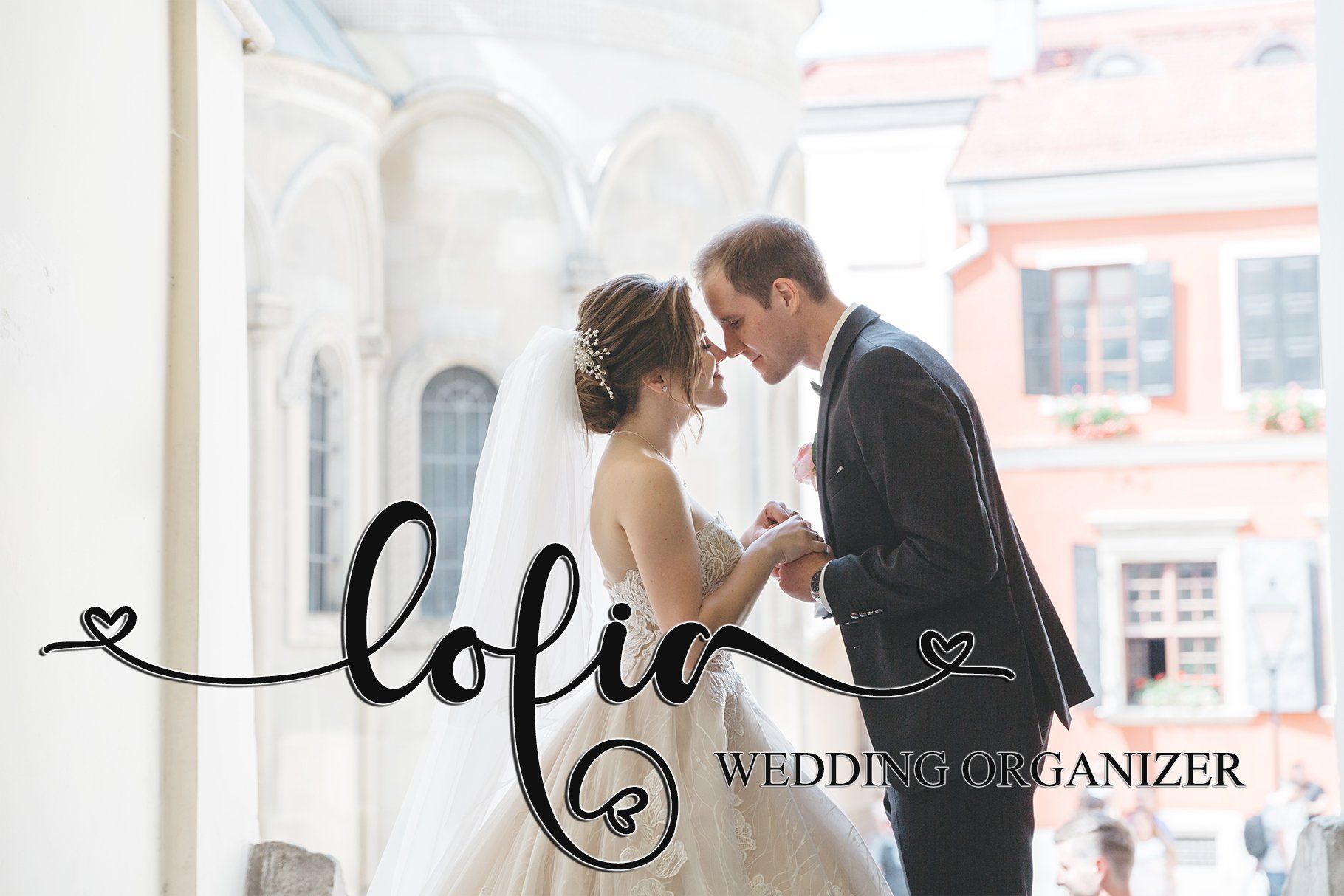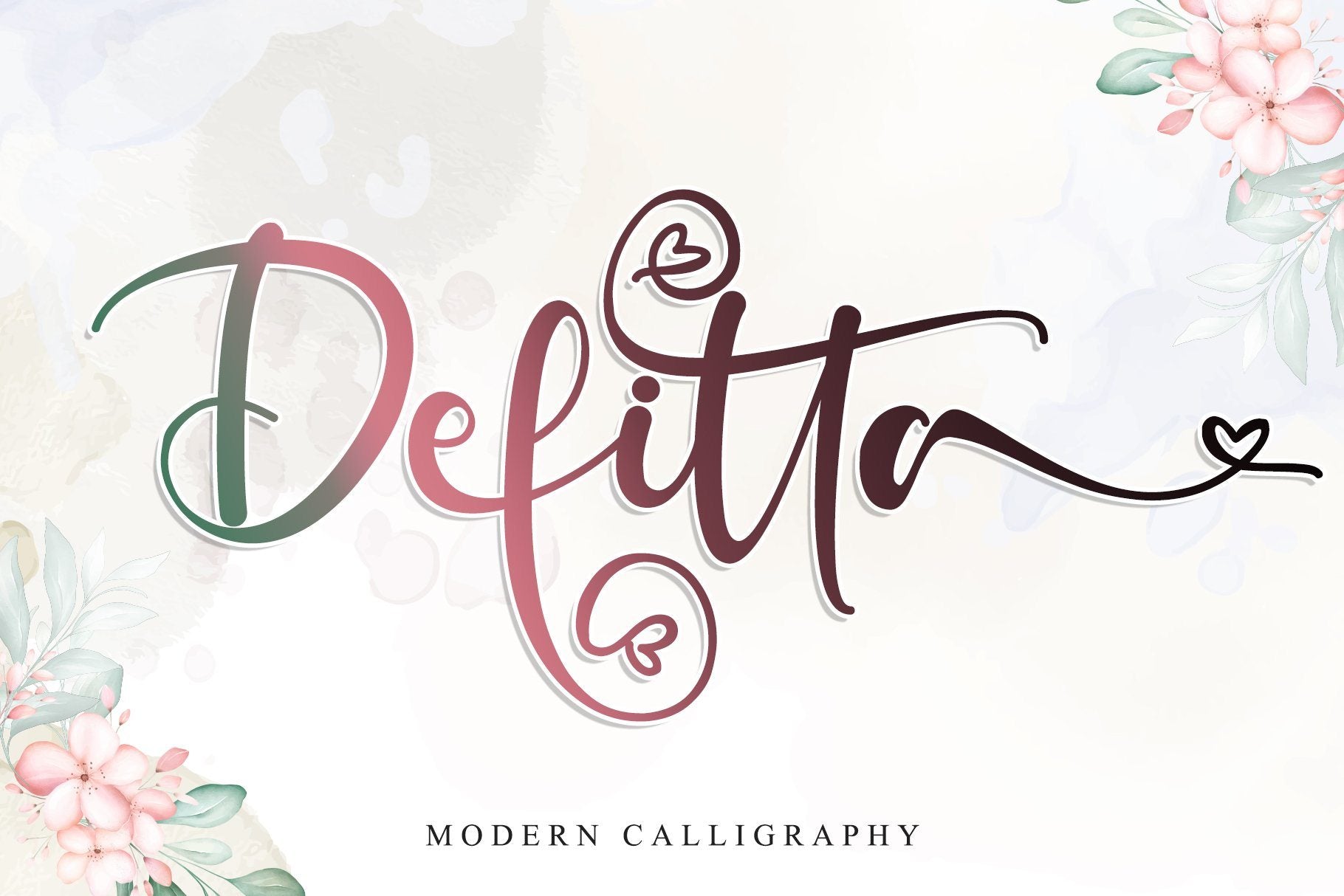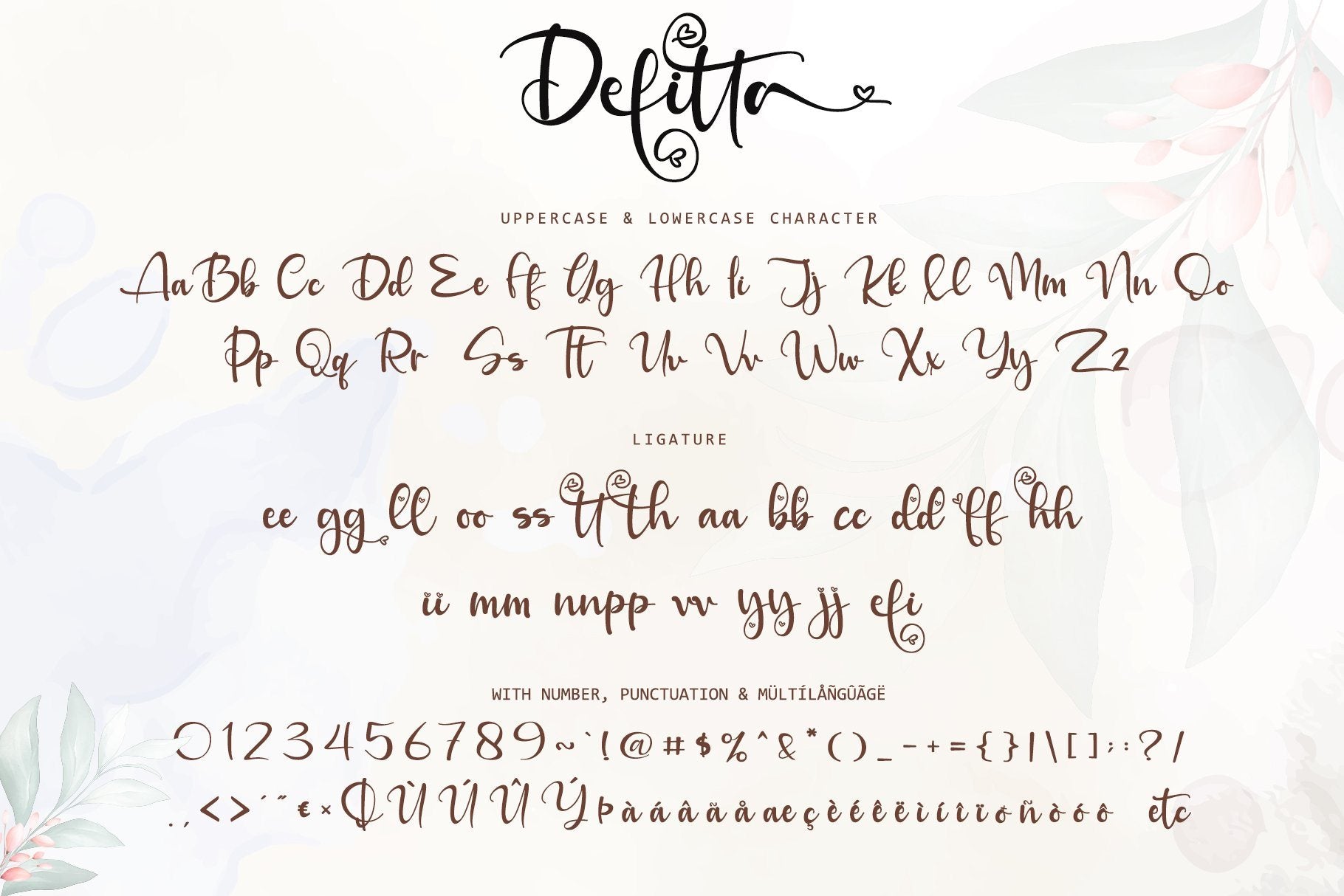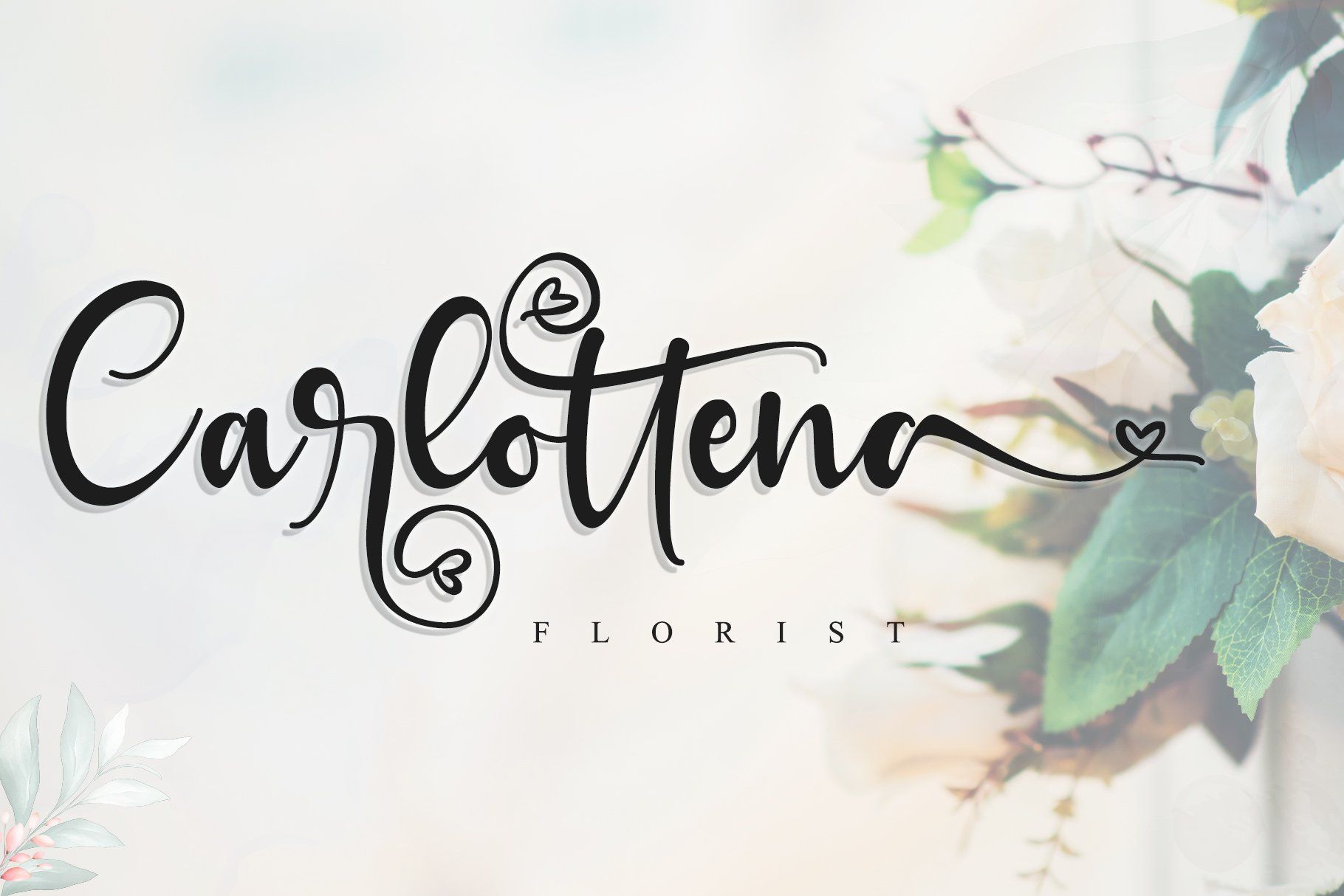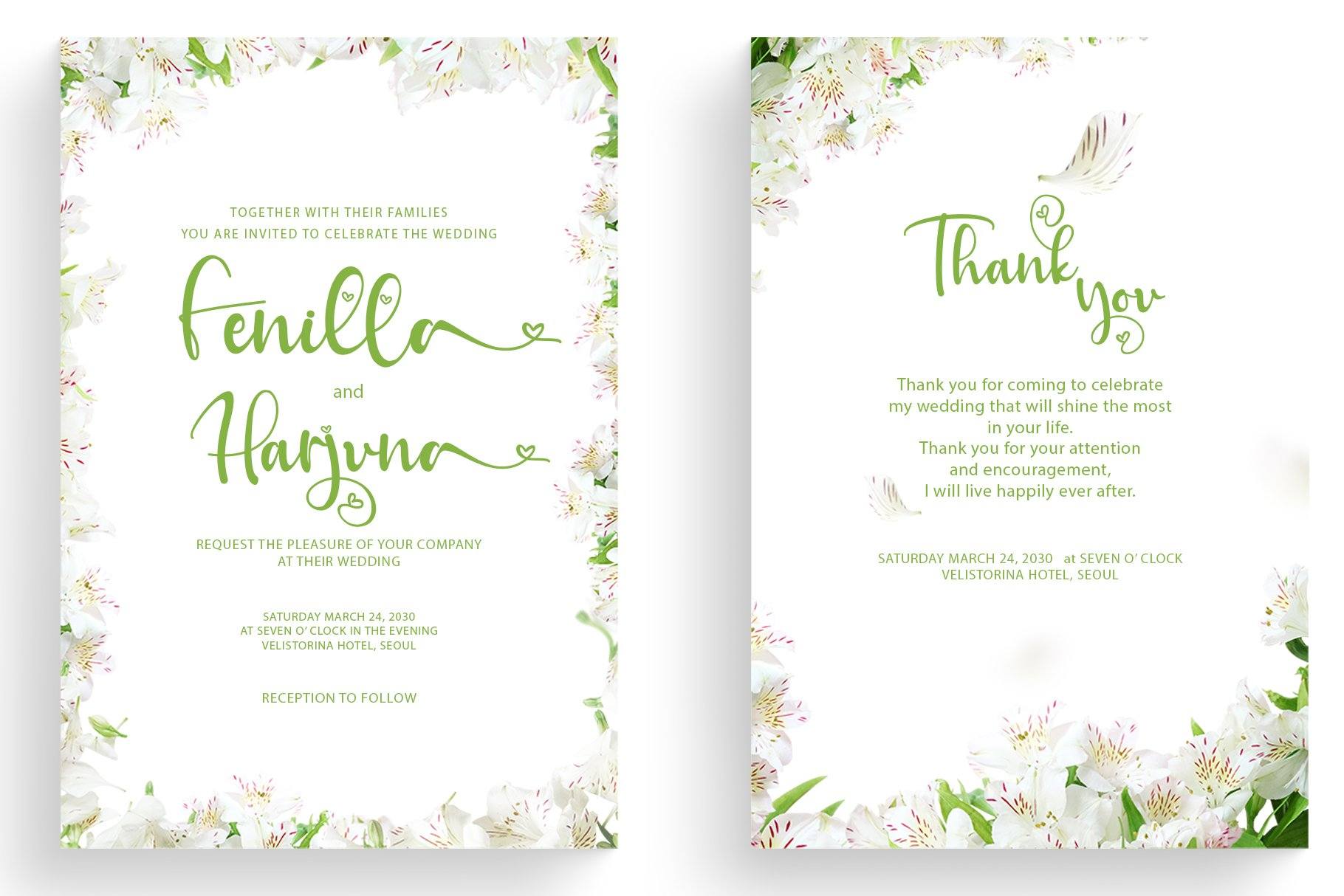
About Defitta
Defitta is an incredibly beautiful script font. It has a classy, beautiful, and modern look that can be used for logos, branding, invitations, stationery, wedding designs, social media posts, and much more! This font is PUA encoded which means you can access all of the glyphs and swashes with ease! It features a varying baseline, smooth lines, gorgeous glyphs, and stunning alternates. What’s Included : Defitta (TTF, OTF, WOFF) Defitta Italic (TTF, OTF, WOFF) Works both on Mac & PC Simple installations Support silhouette Many features: Alternate, Swash, and Ligature Accessible in the Adobe Illustrator, Adobe Photoshop, Adobe InDesign, CorelDraw, even work on Microsoft Word. Support multilingual; ä ö ü Ä Ö Ü ß ¿ ¡ To access the alternate glyphs, you need a program that supports OpenType features such as Adobe Illustrator CS, Adobe Photoshop CC, Adobe Indesign, and CorelDraw. More information about how to access alternate glyphs, check out this link ( http://goo.gl/ZT7PqK ) This font is PUA encoded which means you can access all of the playful glyphs and swashes with ease! It also features a wealth of special features including alternate glyphs and ligatures. To stay up to date for my latest job, follow me and let’s be friends because there will be many promos.